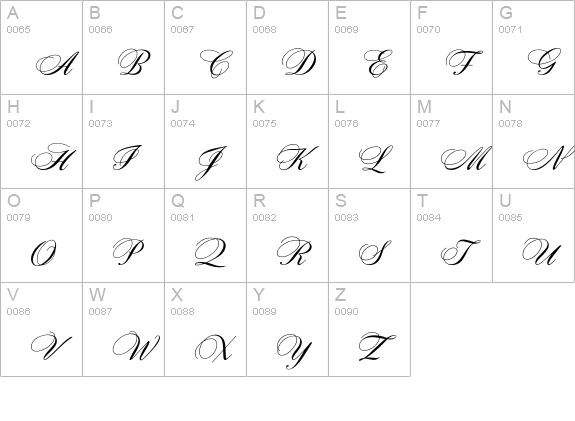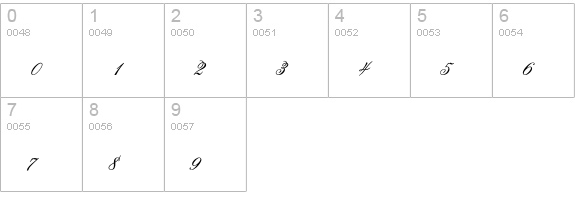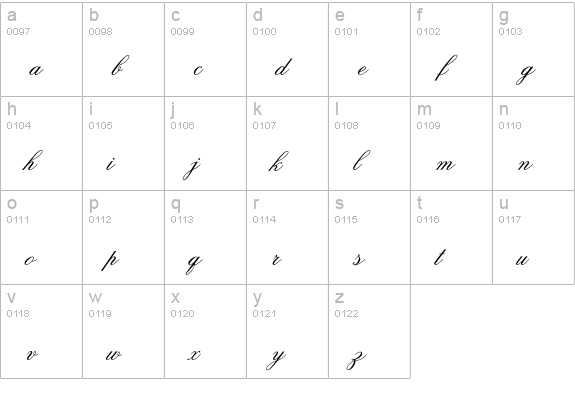
Scarlet Font Details
Scarlet font is a stunning and elegant typeface that exudes a sense of sophistication and refinement. Its sleek and slender letterforms are carefully crafted to create a perfect balance between modernity and classic beauty. With its graceful curves and clean lines, Scarlet font is sure to captivate and inspire. This versatile font is perfect for a wide range of design projects, from branding and logo design to editorial layouts and website headers. Its legibility and distinctiveness make it suitable for both print and digital applications, ensuring that your message is conveyed with clarity and style. Scarlet font is freely available to download at FontsMarket.com. Whether you're a professional designer or a hobbyist, you can take advantage of this amazing font without any cost. FontsMarket.com is a trusted source for high-quality fonts, offering a vast selection of typefaces to suit every creative need. By choosing Scarlet font, you not only enhance your design with its timeless beauty but also support your creative endeavors without breaking the bank. So why wait? Visit FontsMarket.com today and unleash the full potential of Scarlet font on your next project.